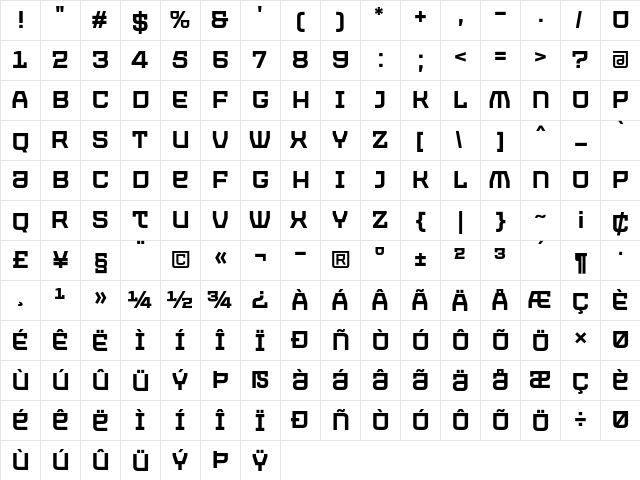
PROTECTOR Regular
| Foundry | 7NTypes |
| Designer | Situjuh Nazara |
Design Context for PROTECTOR Typeface
PROTECTOR is a composed and adaptable typeface that performs quietly and consistently across a wide range of design contexts.